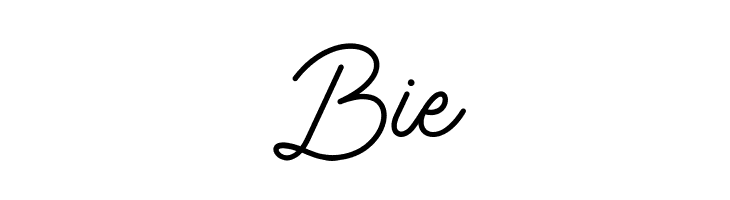
A classic, elegant handwritten font with a vintage signature style.
A bold, playful script font with a handwritten style.
A dynamic, expressive handwritten font with fluid, cursive letterforms.
A classic, elegant script font with flowing, connected letterforms.